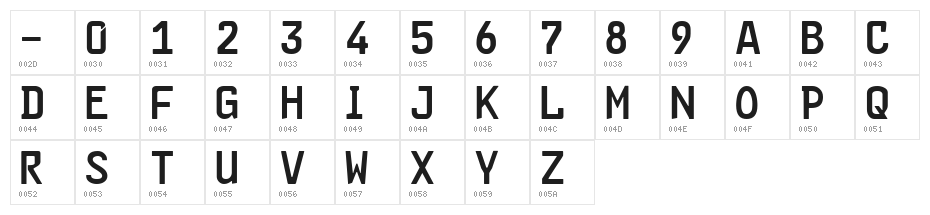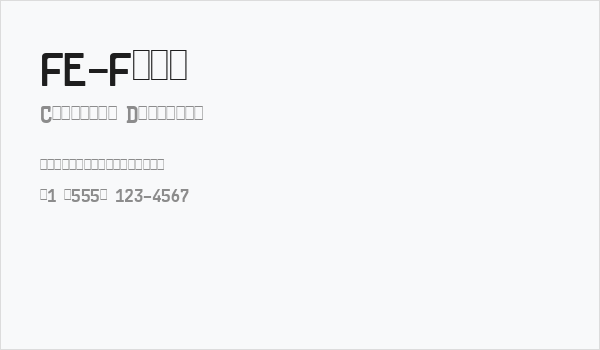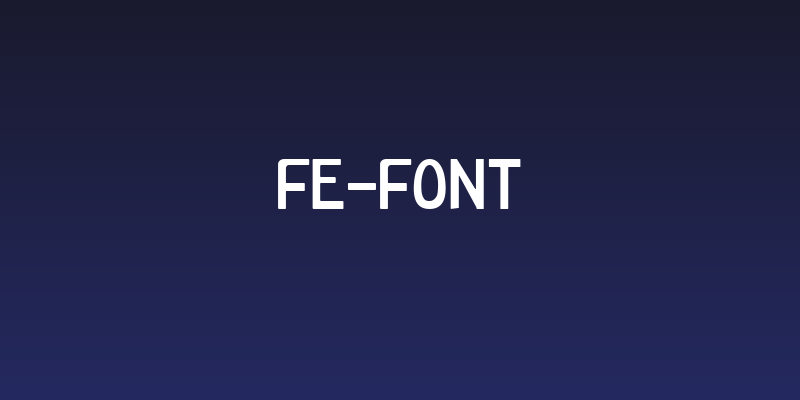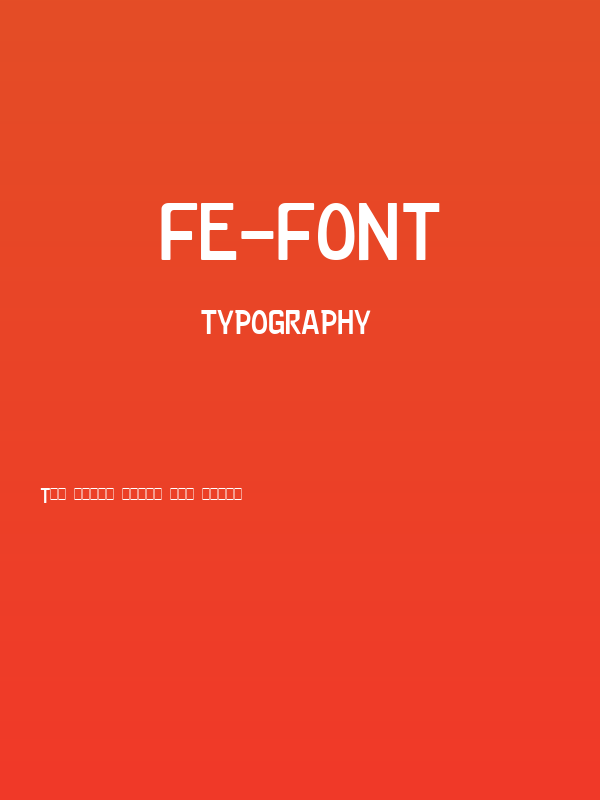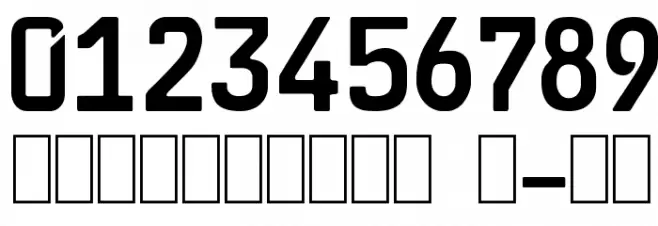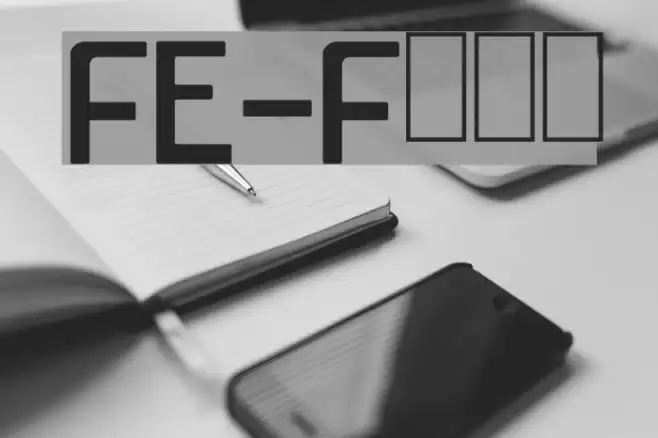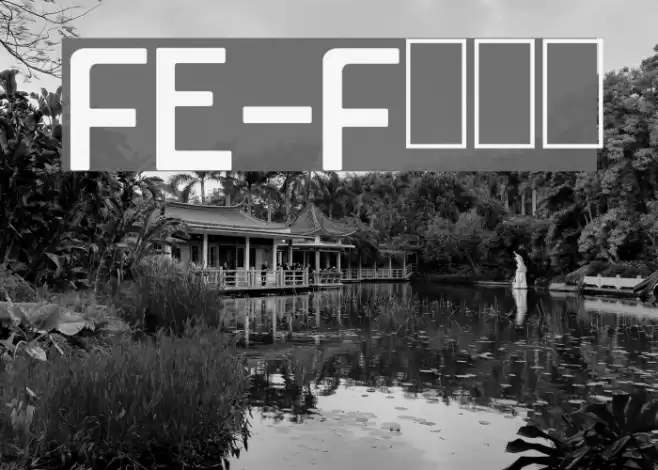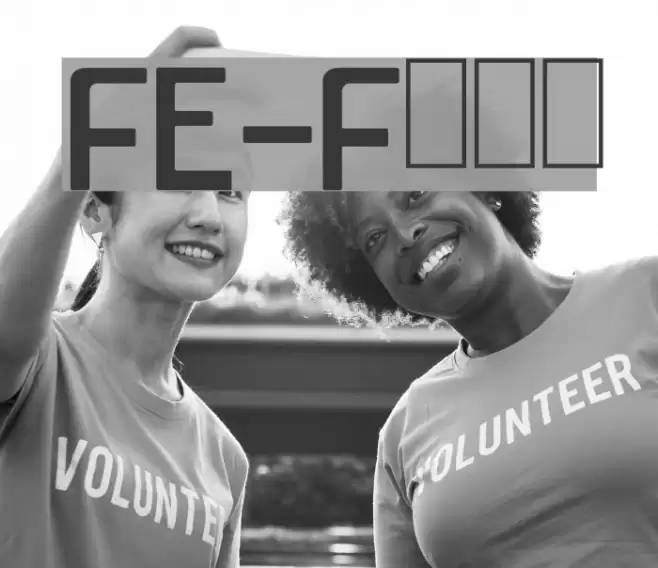
FE-Font Font
FE-Font Description
This font features a bold and geometric design, characterized by its strong, angular lines and uniform stroke width. The uppercase letters are particularly striking, with a modern and industrial feel. The numerals are equally robust, maintaining the same boldness and clarity. The overall style is clean and impactful, making it suitable for attention-grabbing headlines or signage. The font's design is consistent across all characters, providing a cohesive and professional appearance.
| Use Case | Headlines, Signage, Branding |
| Proposed Projects | Ideal for branding, signage, posters, and headlines that require a modern and industrial look. |